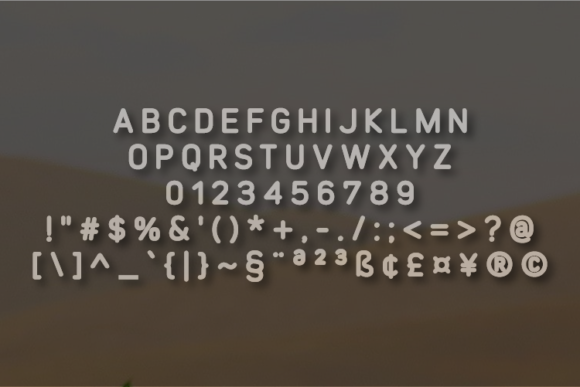
Introduction to Shoffer Font
Shoffer is a distinct and elegant sans serif font that blends traditional influences into a contemporary aesthetic.
It will look particularly adept when used in logos, branding, packaging design, and much more .